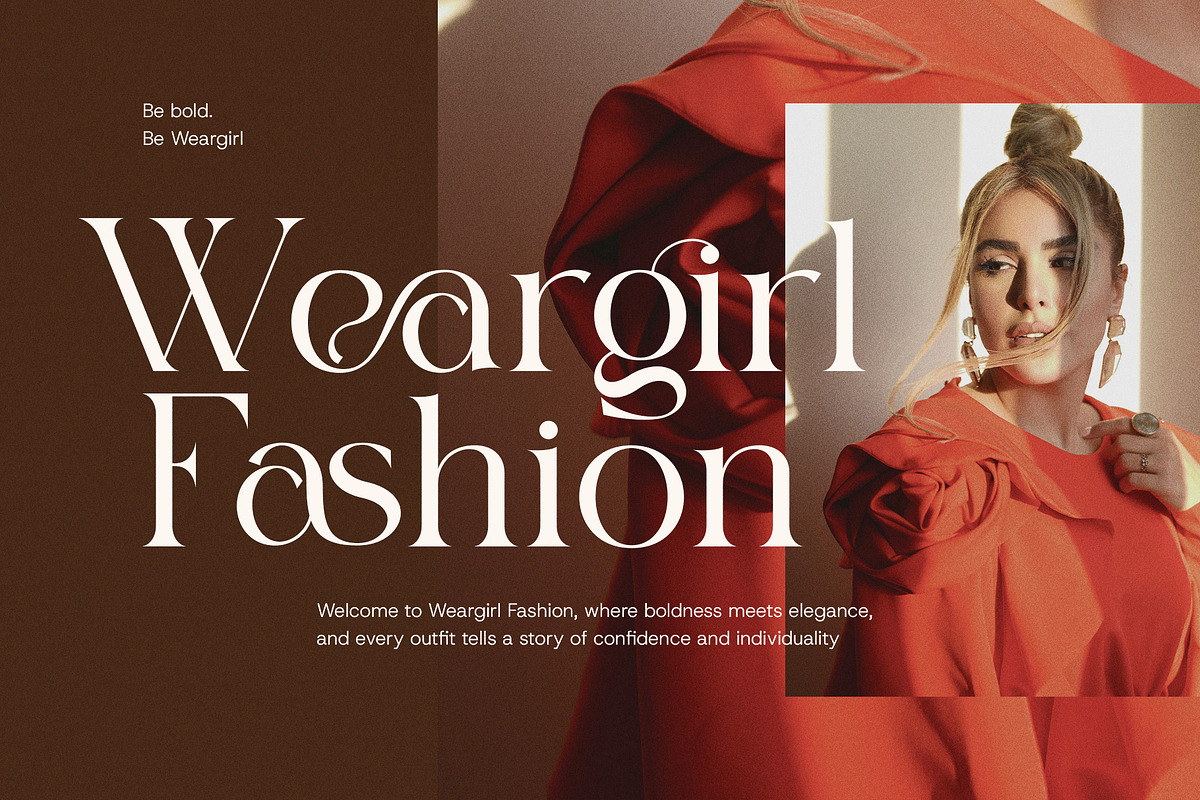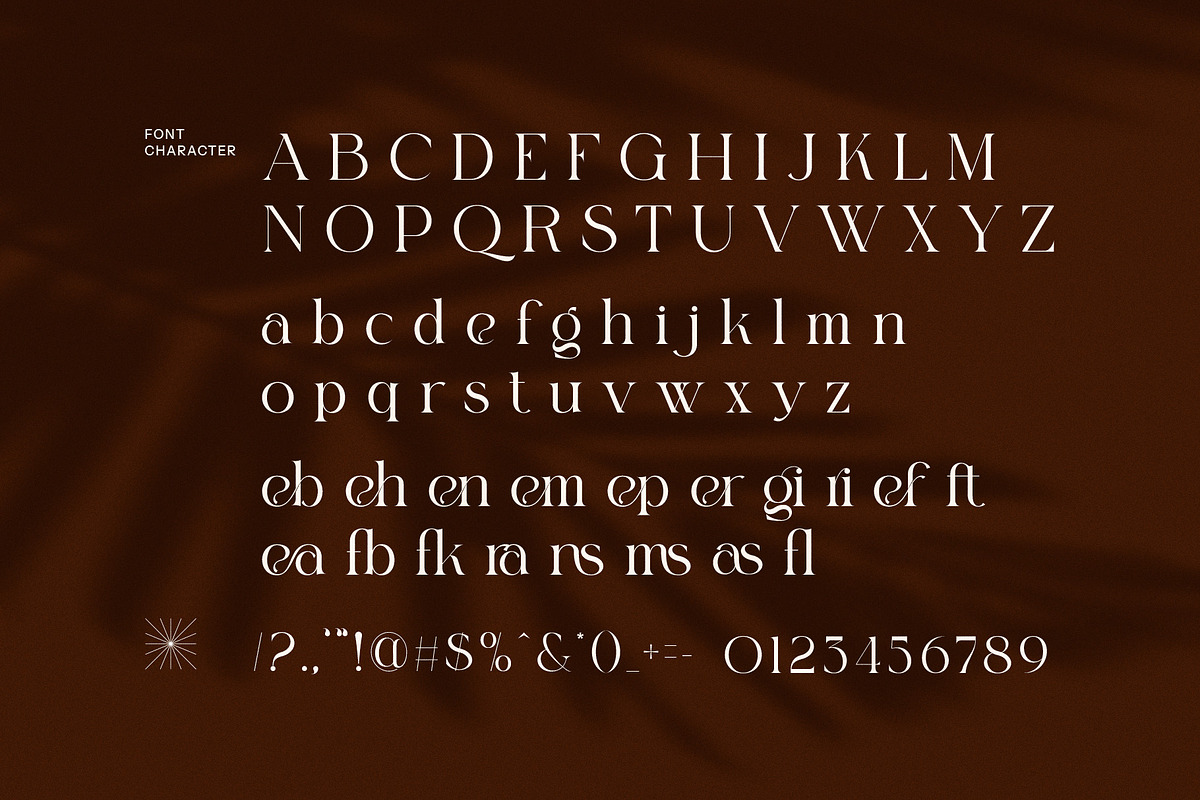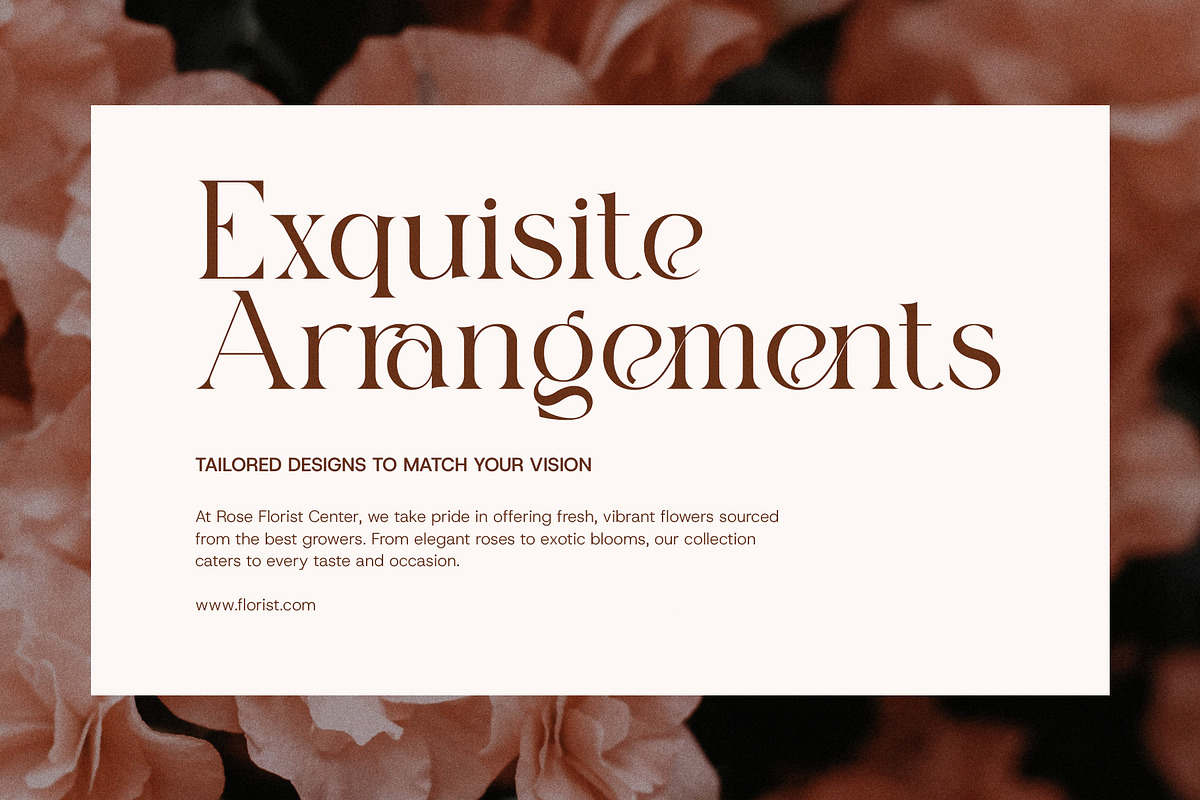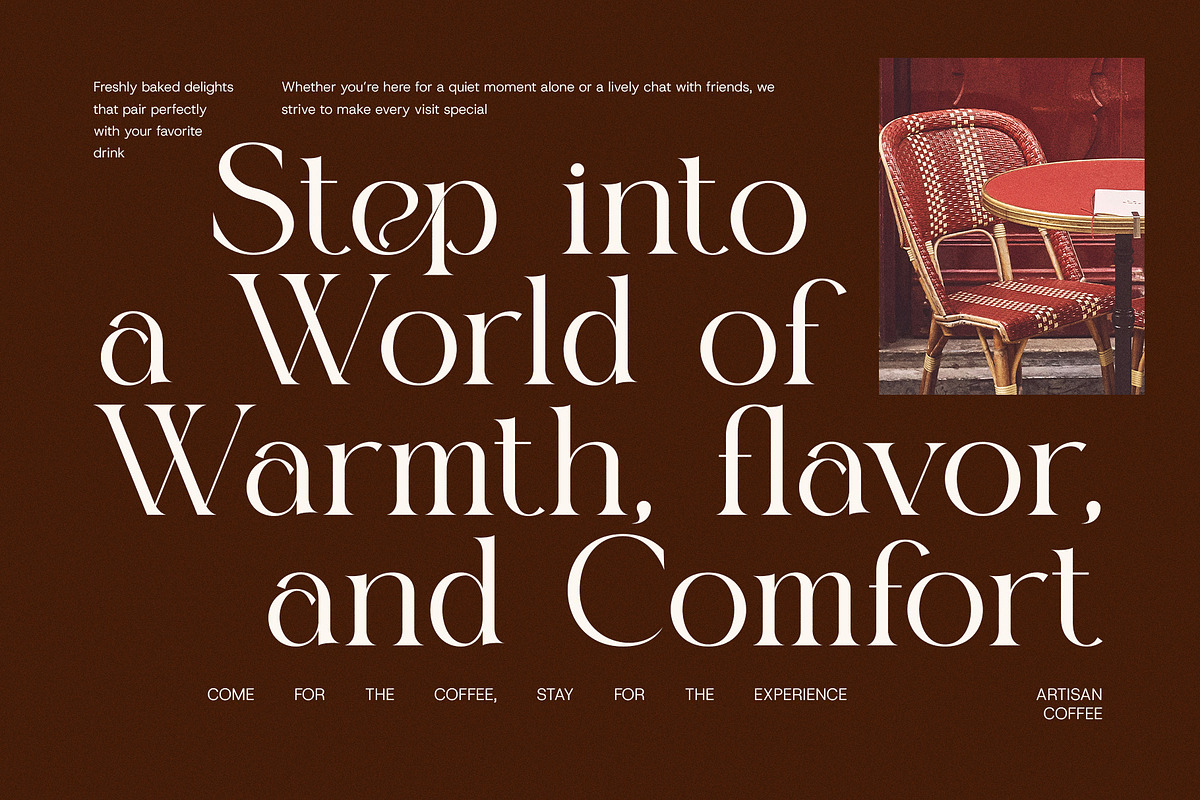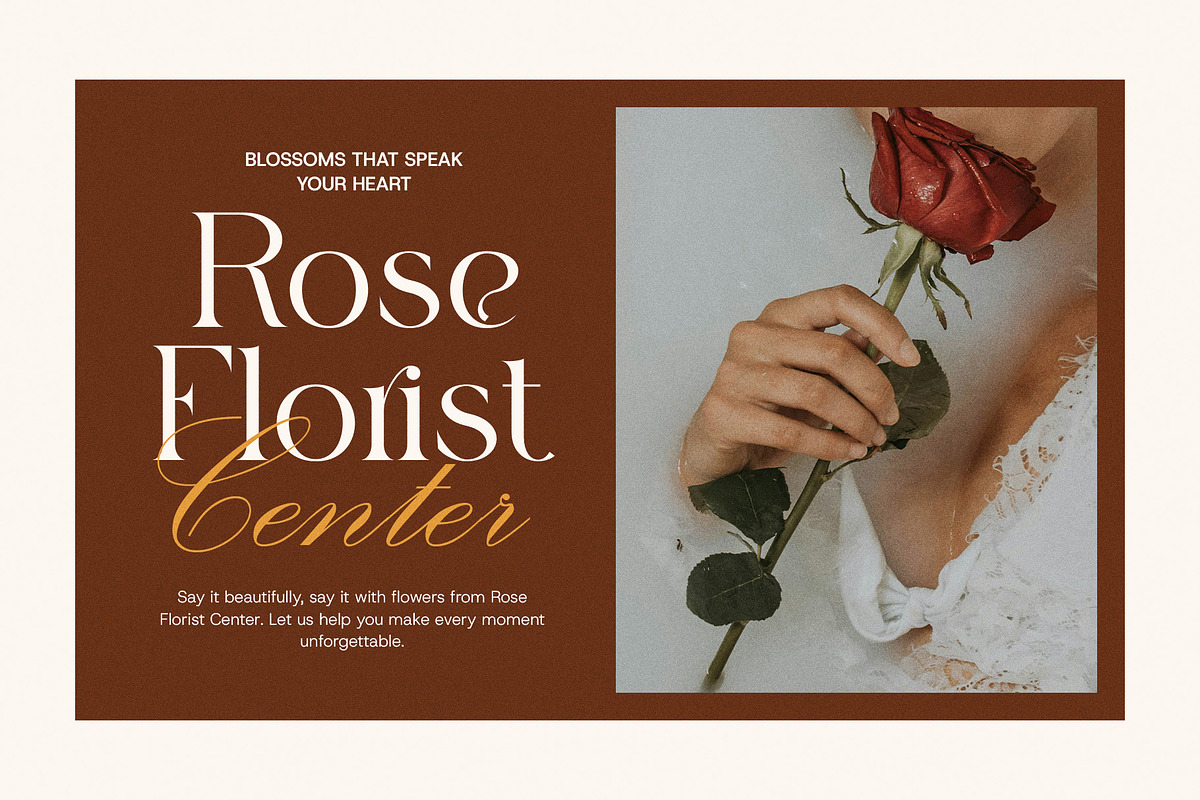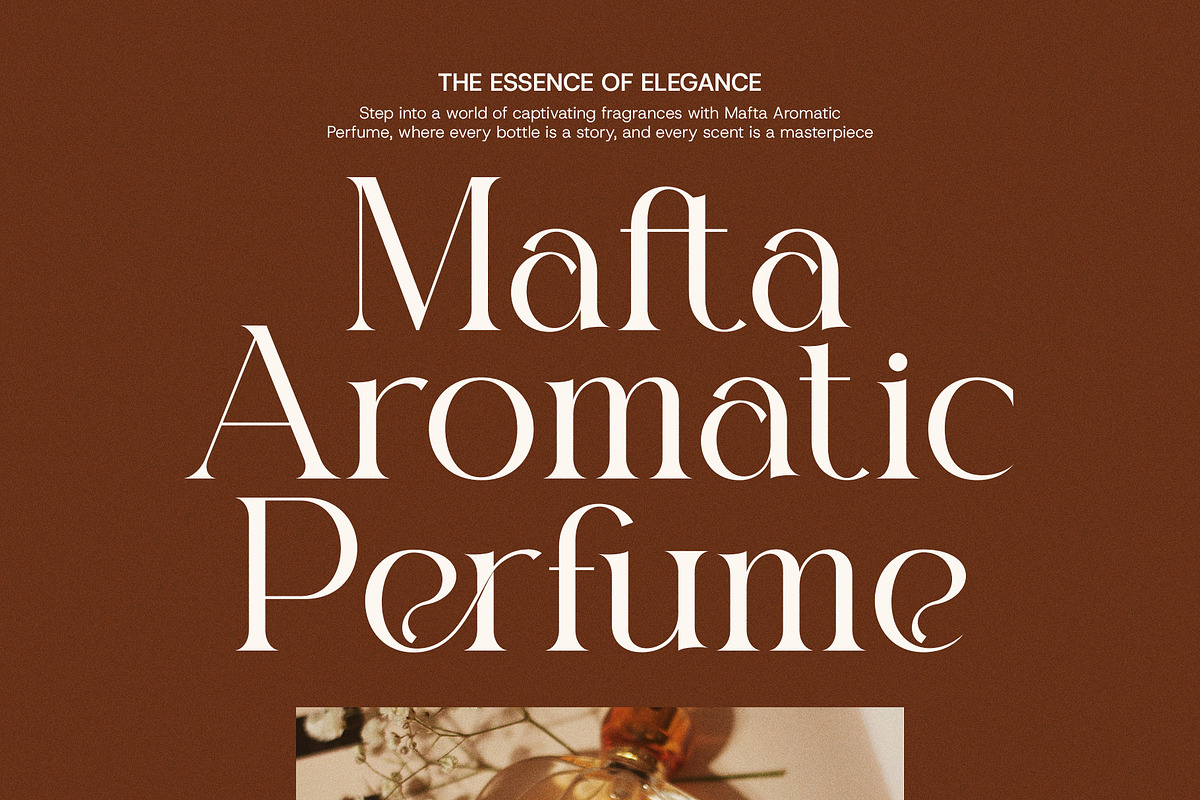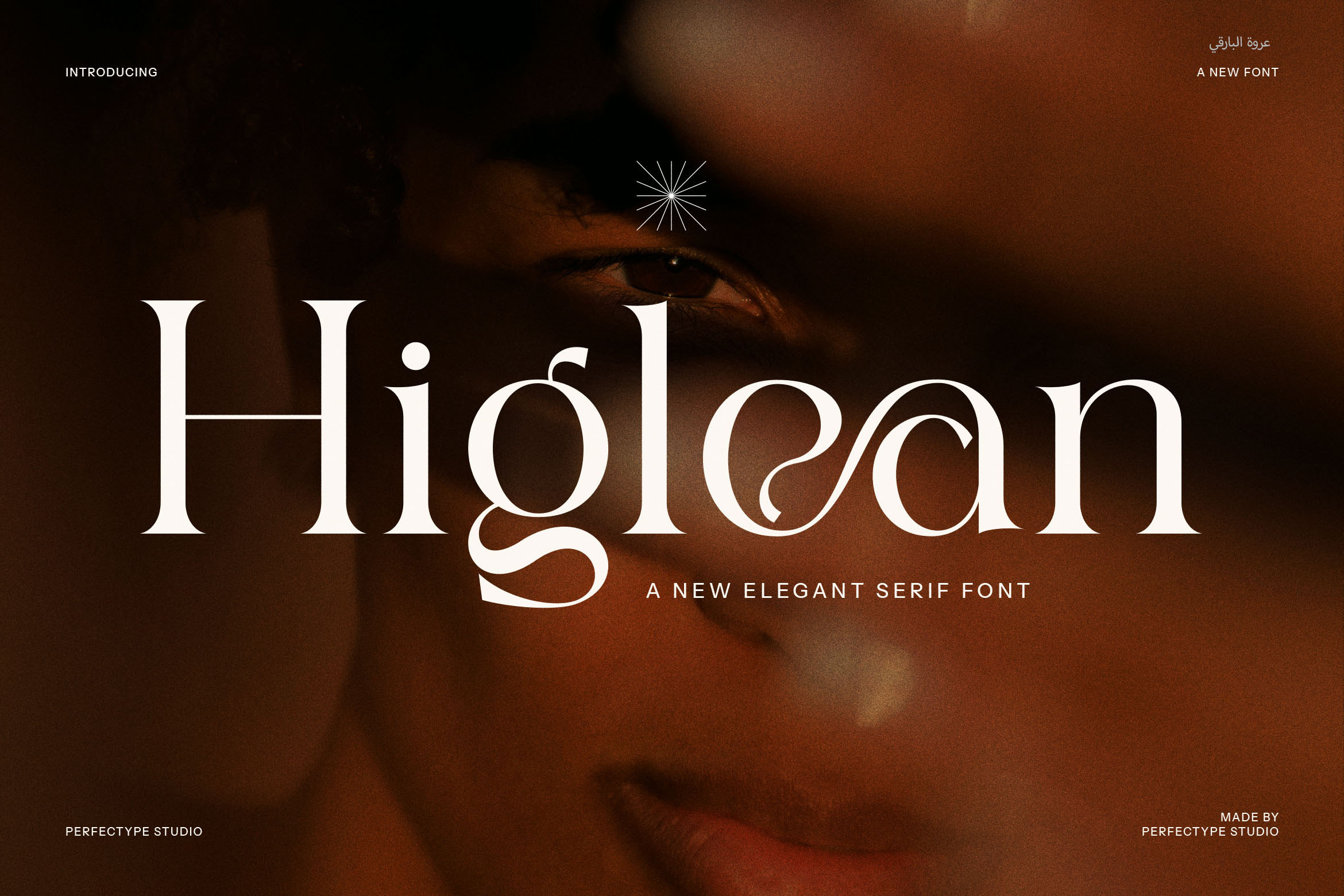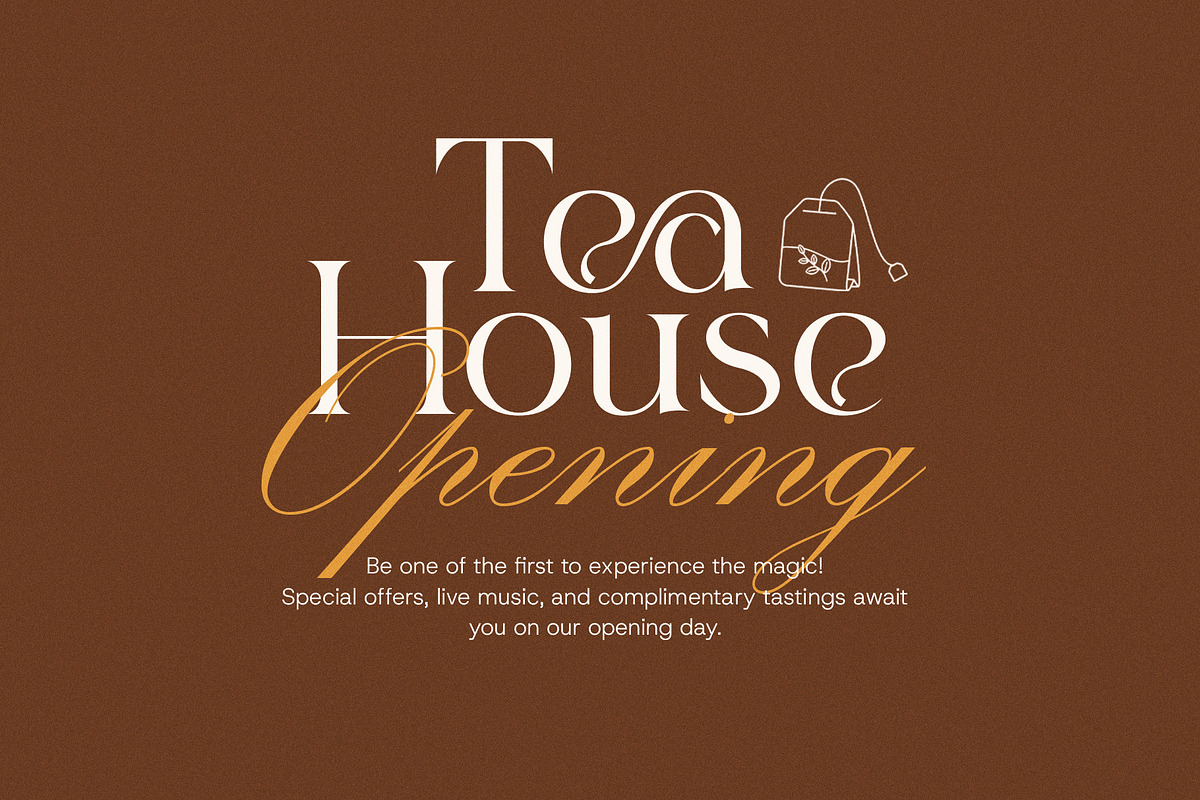
Higlean Modern Serif Font
Introducing Higlean Modern Serif Font, a sleek and sophisticated typeface that effortlessly combines modern elegance with classic charm. Designed for those who appreciate timeless style with a contemporary twist, Higlean brings a refined, polished look to any creative project. Its unique design elements and beautiful ligatures make it the perfect choice for logos, branding, websites, magazines, product packaging, and advertisements.
What sets Higlean apart is its carefully crafted alternate letterforms and distinctive ligatures, adding a layer of artistry to your designs. These thoughtful touches give the font a high-end, luxurious feel, while maintaining a clean, modern aesthetic. The font’s stylish serifs and balanced letterforms exude sophistication, making it ideal for upscale brands, boutique shops, restaurants, and premium products.
Whether you're designing a chic website, an eye-catching logo, or a stylish magazine spread, Higlean offers superior versatility and legibility. Its timeless design ensures that it shines in both digital and print formats, providing a perfect solution for any project that requires a refined and professional look.
Higlean Modern Serif Font effortlessly elevates any design with its perfect blend of modern elegance and timeless appeal. Ideal for a wide range of industries, from fashion and lifestyle to food and luxury goods, Higlean is the go-to typeface to give your brand or creative work a polished, high-end feel.